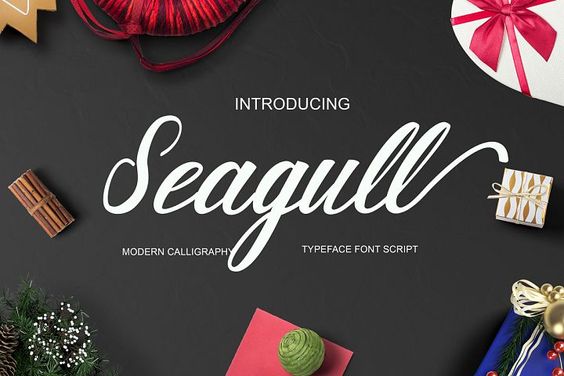
Seagull Script Font
SEAGULL Modern Calligraphy. This font was designed by handwriting, and it has a modern and unique forms of calligraphy, the writing style is very natural.